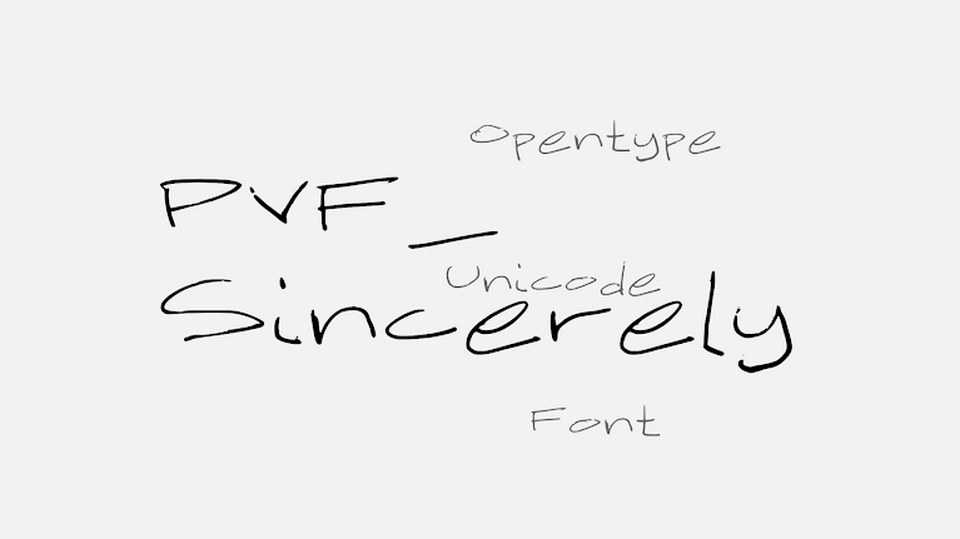
Download PVF Sincerely font, a typeface that appears like a draft handwriting of a mature person. PVF Sincerely offers the freedom a free hand can, in a Regular and Semi-Bold style.
Designer: Petros Vasiadis